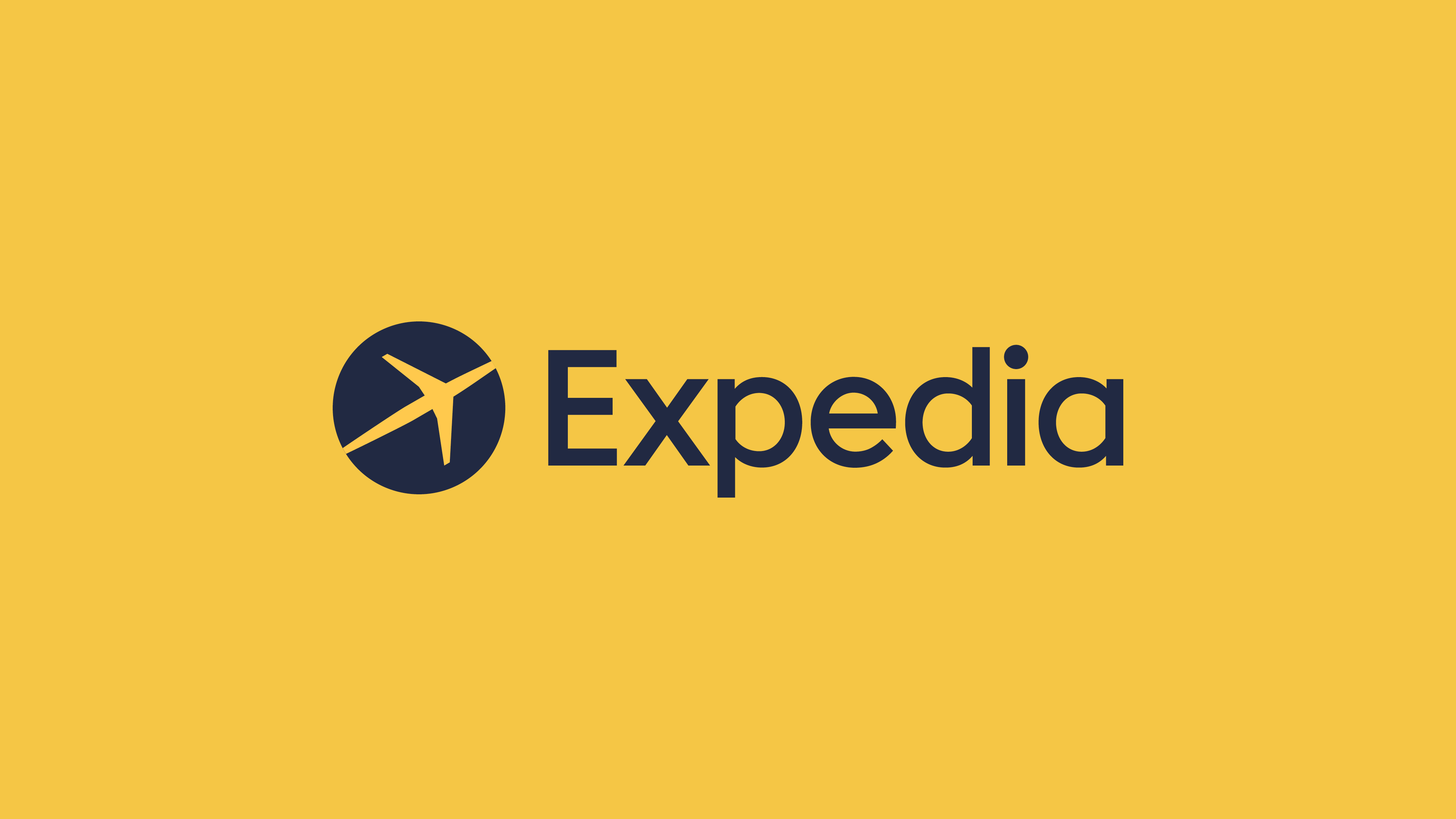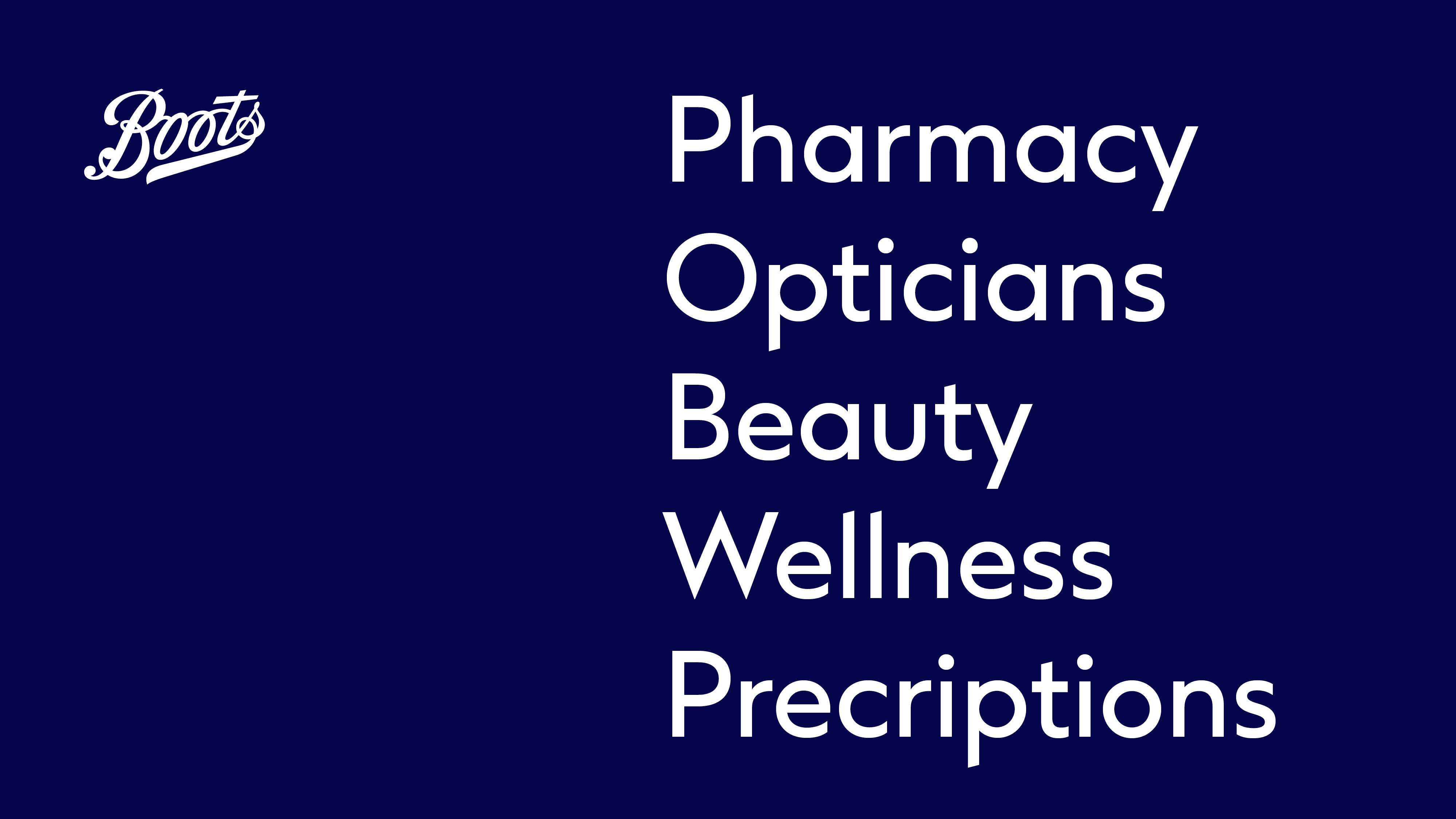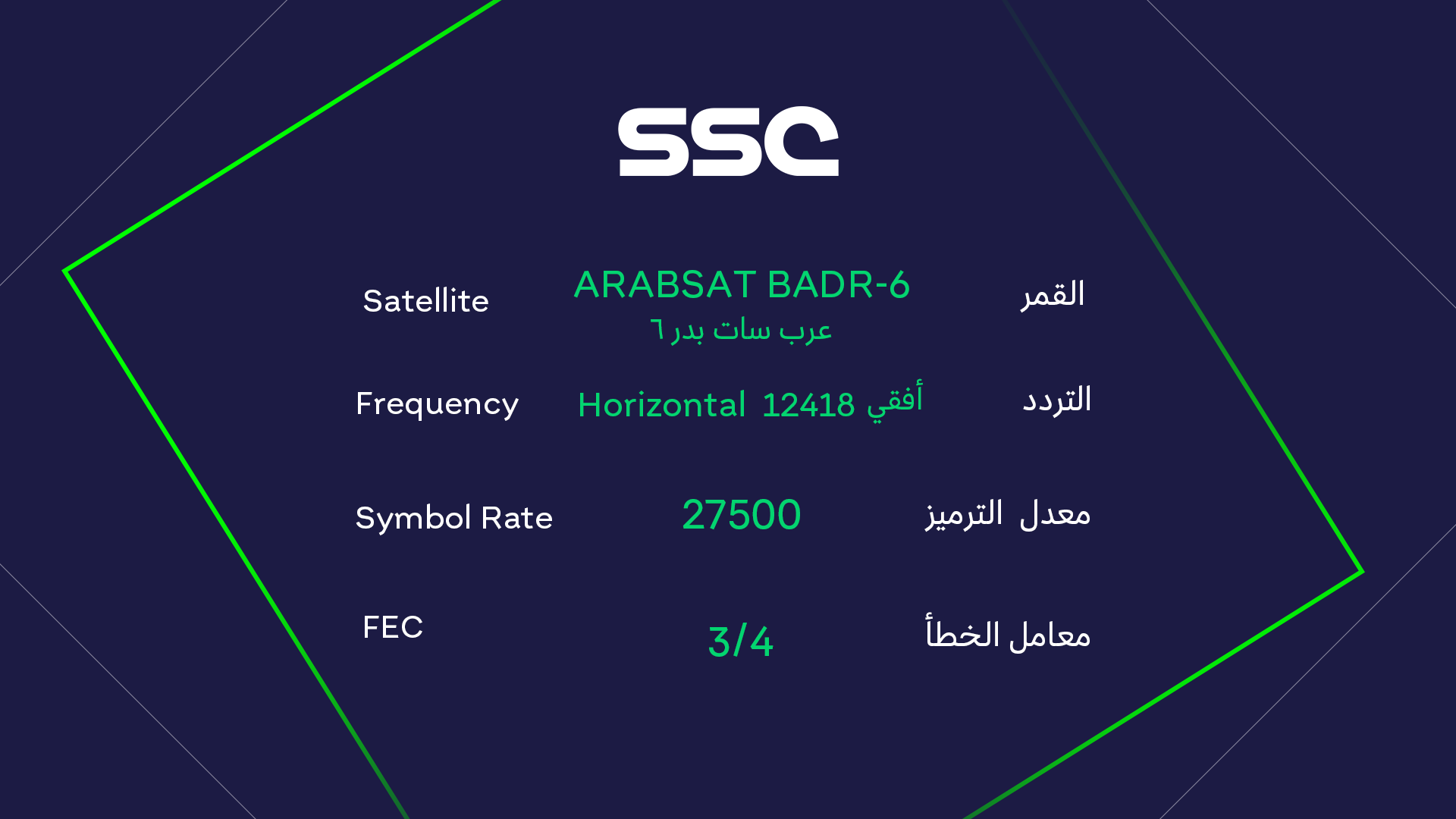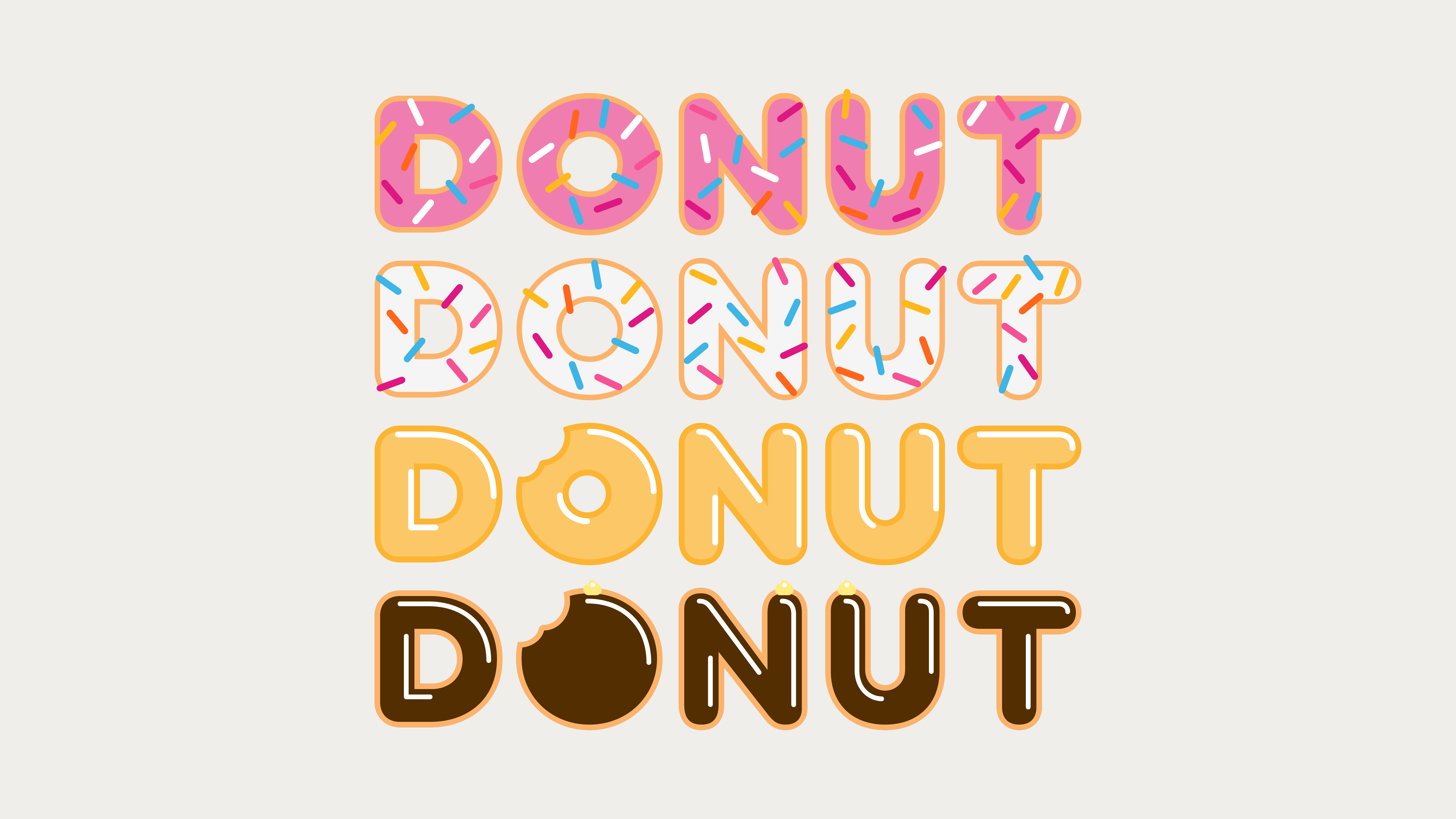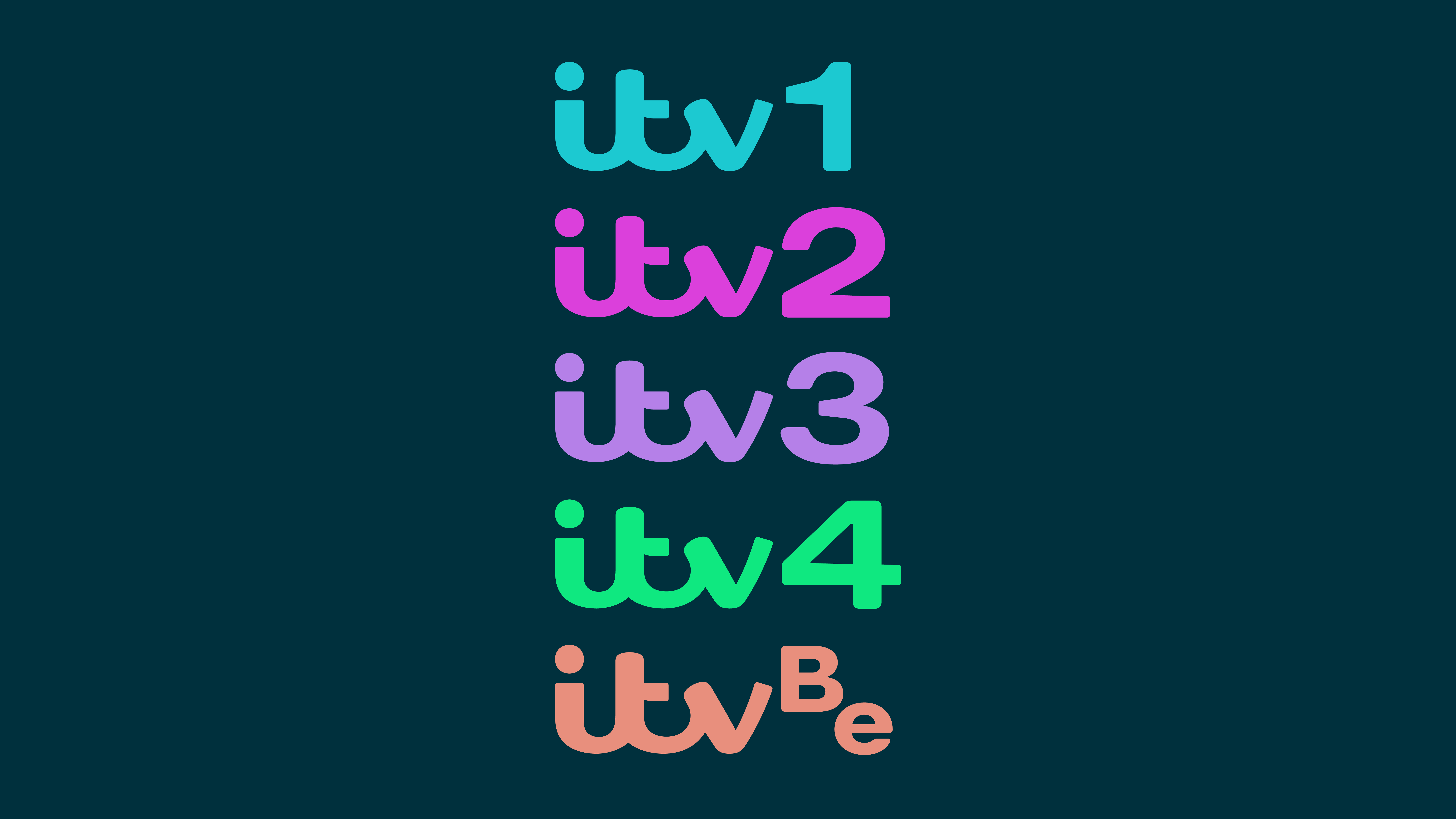
F37® Foundry is set up for every aspect of brand-asset creation. From creating comprehensive font families to logos and localisation. We’re here to steer & support you every typographic step of the way.
We can modify our existing fonts to make them more you. From subtle tweaks and fine enhancements to more extensive customisation. Expressive, emotive and engaging, they convey the character of your brand, adding real commercial value, wherever in the world you do business.
Logotype design and optical crafting for Expedia, one of the World's biggest online travel shopping companies. Commission: Greene & Sons
Logo crafting and optical refinement for Gousto — the award-winning food box company making home cooking simple. Commission: Superunion
Logo for one of the UK’s largest connected home providers, producing smart devices for over 360,000 customers. Commission: Wolff Olins
Logo crafting and optical refinement for BT, a world-leading technology business. Commission: ZAG
Variable logo and optical refinement for Serpentine Gallery, a free-entry, world-renowned art gallery. Commission: Hingston Studio
Logo for online furniture retailer Swoon Editions. The logo references different furniture manufacturing processes — the N nods to chair joinery and the W refers to bent steel. Commission: ZAG
We worked with Baskin Robbins to design the Japanese and Taiwanese versions of their famous 31 logo. Commission: Dunkin' Brands Inc
Arabic version of a modified F37 Attila for global broadcast company, SSC. Commission: We Are Works
Color Fonts are fonts with predefined colour palettes and effects applied within the font files. Whilst it may sound simple to do yourself (i.e. choose a font and select a colour), having your typeface set with distinctive effects designed from scratch, ensures uniqueness and guarantees that all those working with your font don’t slip up when trying to match the colour and/or effect themselves.
Hinting (or screen optimising) is about giving subtle instruction from the font to the screen’s renderer so they’re more legible when there are limited pixels to display on. All fonts work well at large sizes and on high-resolution screens, but we’ll make sure your font stays crisp in smaller sizes and lower resolutions digital environments too.